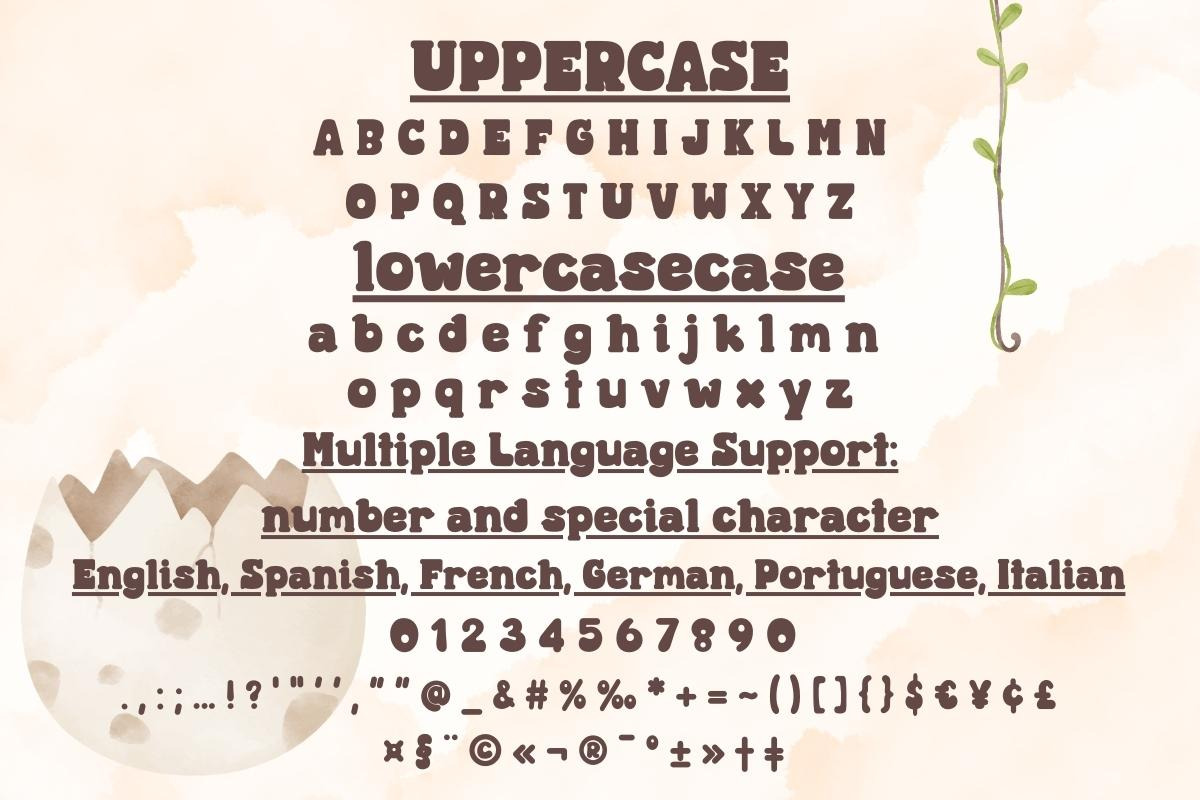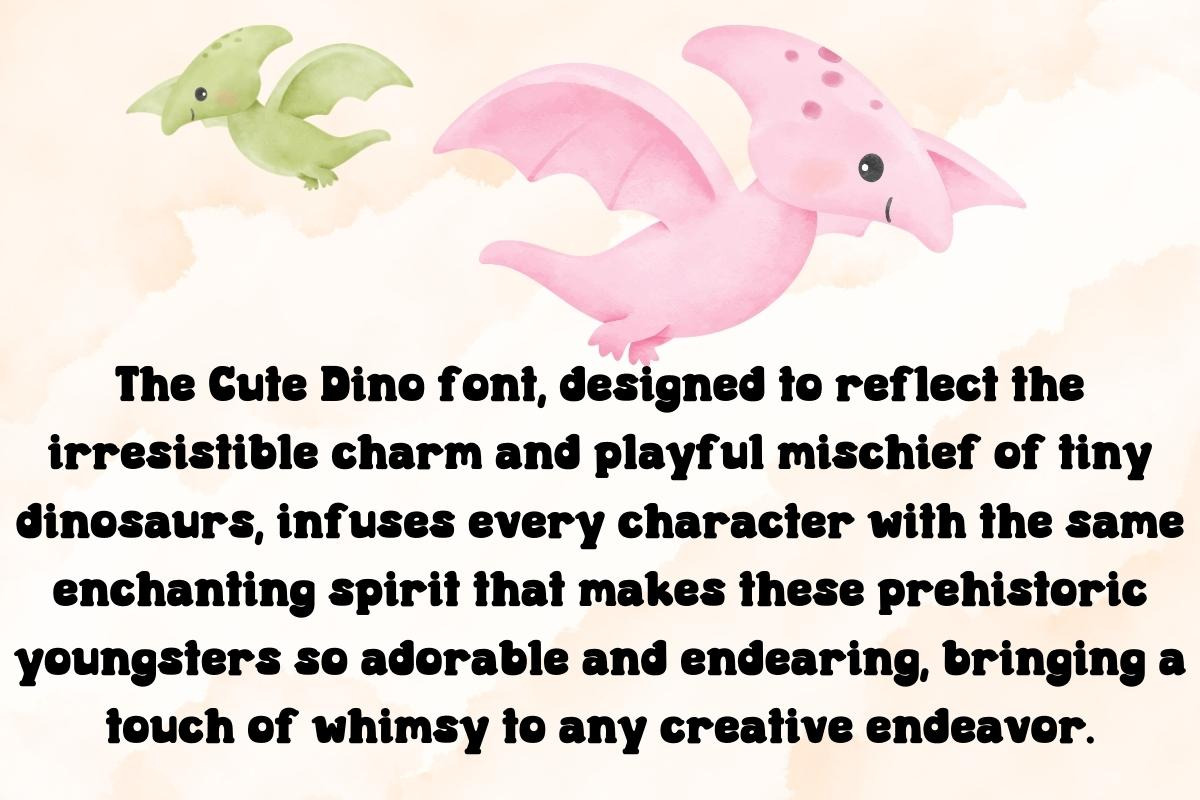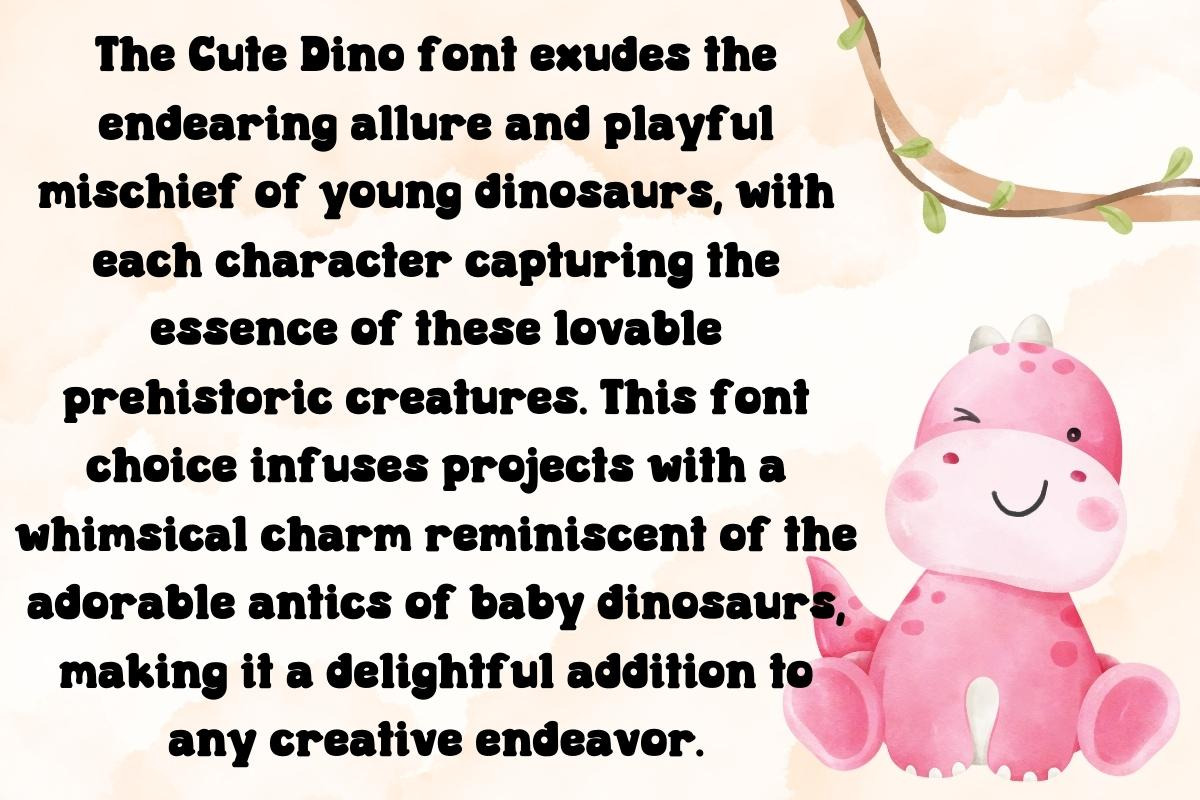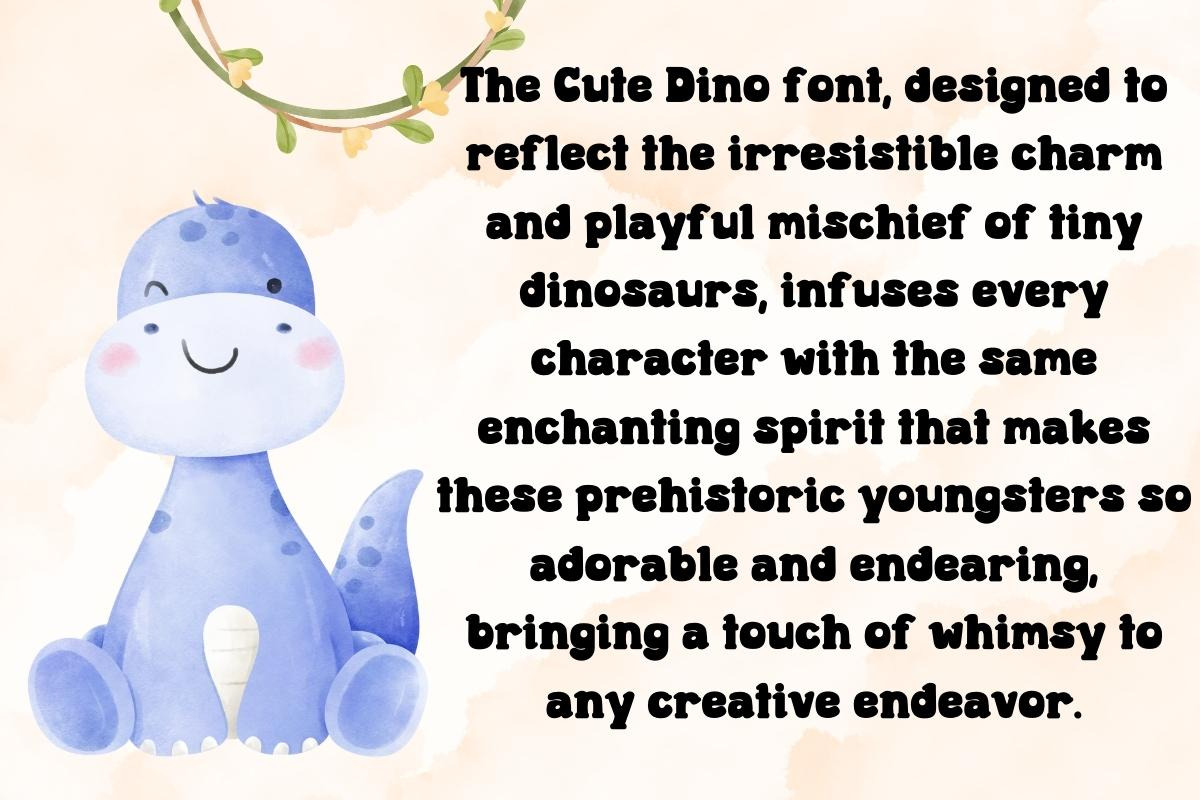
Cute Dino - Handwritting
The Cute Dino font, inspired by the endearing cuteness and mischievous antics of young dinosaurs, perfectly captures the whimsical spirit of these prehistoric creatures in every letter, adding a delightful touch to any design or project.